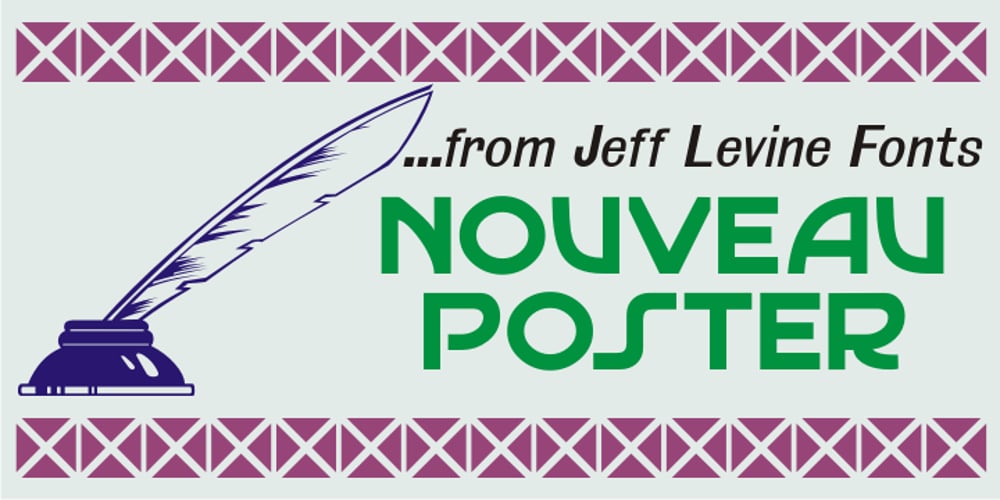
Nouveau Poster JNL Font Family was designed by Jeff Levine and published by Jeff Levine. Nouveau Poster JNL contains 1 styles and family package options. When master letterer Hugh Gordon and his student, Ross F. George developed a set of lettering pens between June 16, 1913 and Sept. 1, 1914, they had no idea that their invention (which they named Speed-Ball®) would still be in use nearly a hundred years later. The C. Howard Hunt pen company [originally of Camden, New Jersey] became the original (and sole) distributor of these pens. By 1915 an instructional booklet entitled “Modern Pen Lettering” was produced, and it was copiously illustrated with examples of layouts, lettering techniques and an assortment of alphabets for the user to learn. Nouveau Poster JNL is Jeff Levine’s interpretation of a sanserif design found within the pages of this vintage publication.